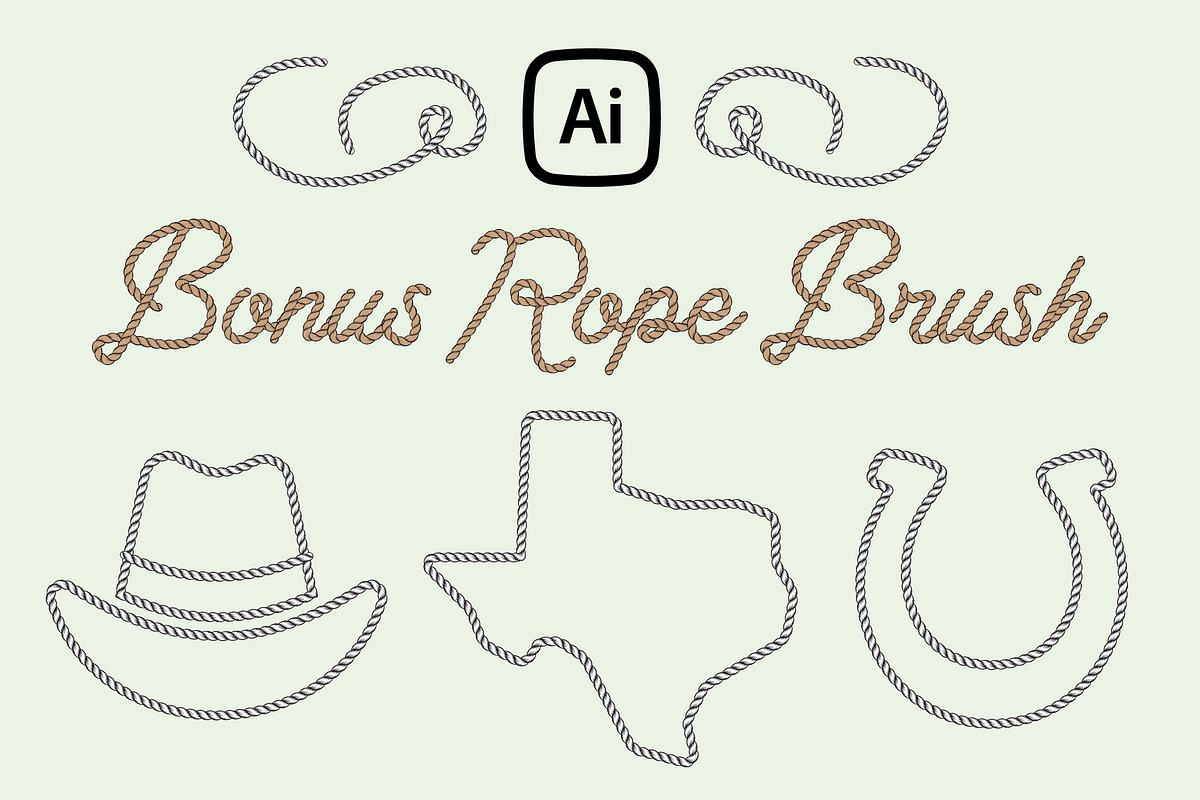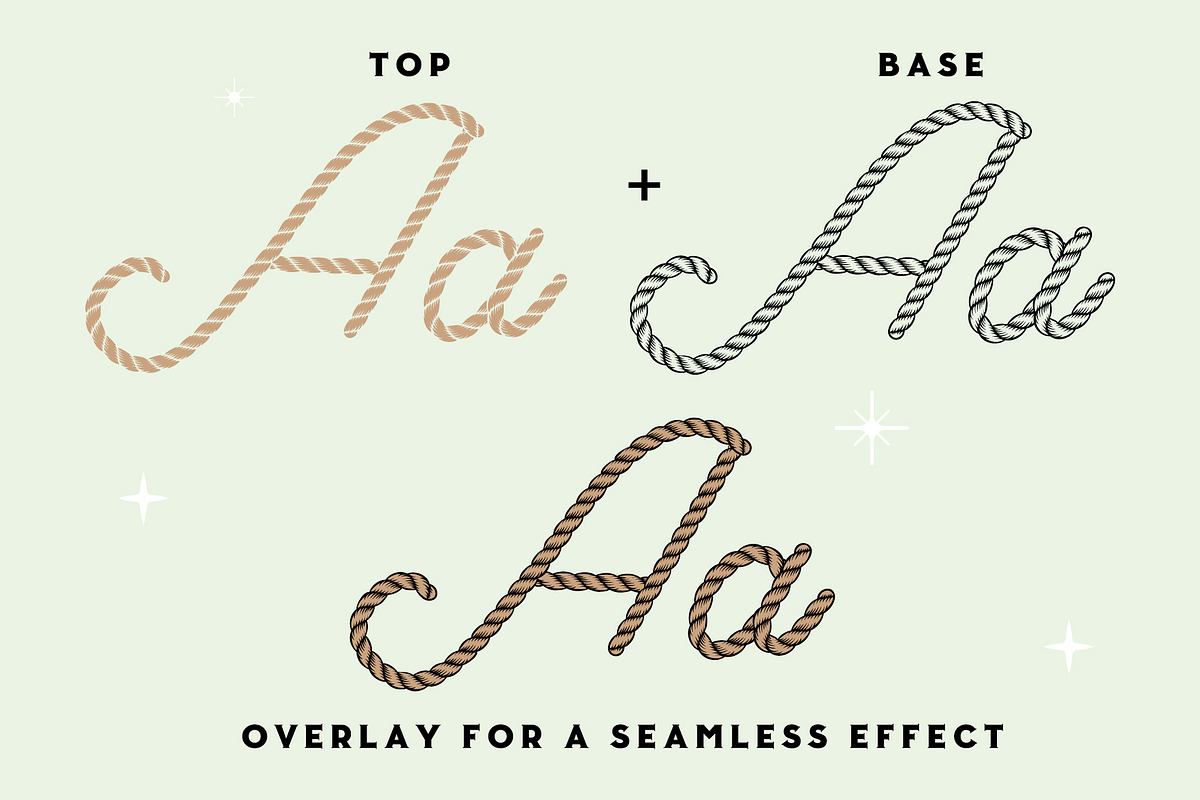
Lasso Monoline
Introducing Lasso Monoline, a playful and charming script font crafted entirely out of rope! This unique monoline typeface weaves together Western flair and modern design, making it perfect for anyone looking to add a fun, rustic vibe to their projects. Whether you’re designing for branding, packaging, signage, or social media, Lasso Monoline brings a distinctive, hand-drawn quality that stands out in any design setting. Ideal for those looking to add a touch of adventure, cowboy spirit, or vintage charm to their work.
BONUS:
We've also included the rope brush used to make Lasso, so you can add this effect to your project!